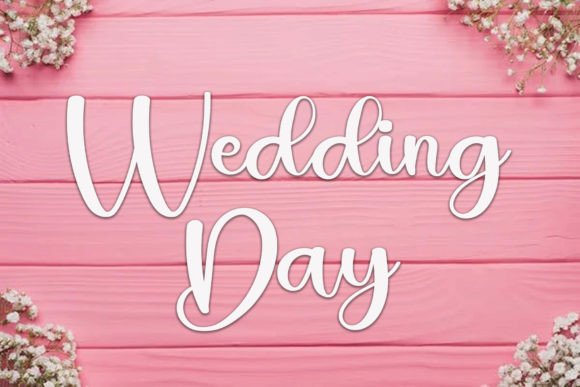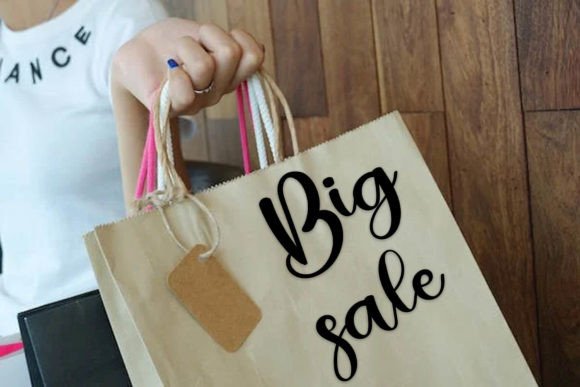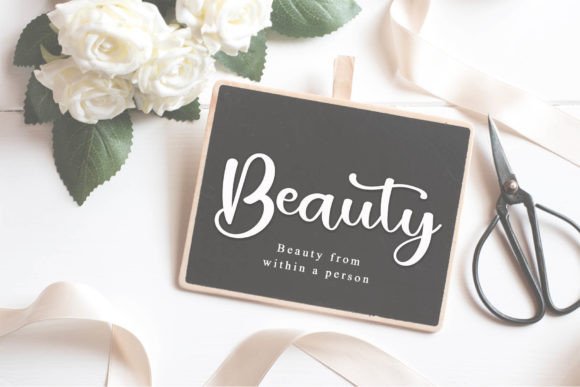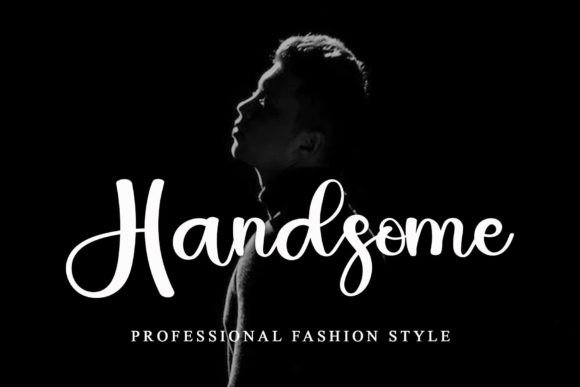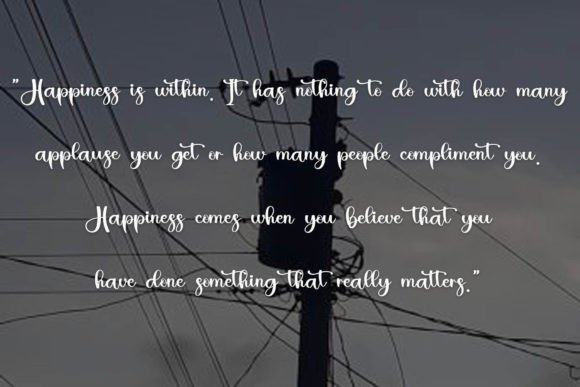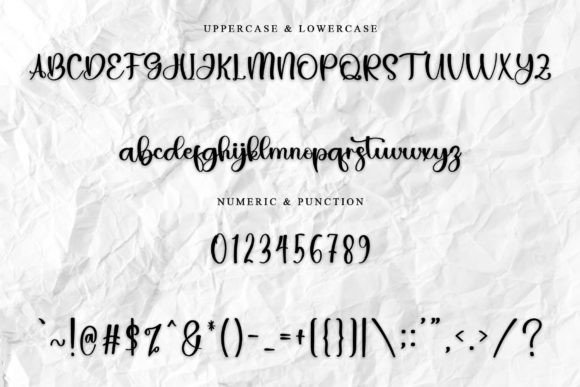
Discover the Elegance of Delight Font: Elevate Your Designs with Timeless Style
In the world of typography, few fonts manage to capture the essence of elegance and sophistication as effectively as the Delight Font. This stunning handwritten font is characterized by its neat, beautiful, and distinctly elegant touch, making it an ideal choice for designers and crafters looking to add a touch of class to their projects. With its incredibly distinct and timeless style, Delight Font is poised to become your new favorite companion in creating spectacular designs that stand out from the crowd.
The Charm of Delight Font
Delight Font is more than just a collection of letters; it’s an expression of artistry and refinement. Its elegant touch is immediately noticeable, offering a sense of sophistication that can elevate any project. Whether you’re working on a branding campaign, crafting a beautiful wedding invitation, or designing a captivating poster, Delight Font brings a level of distinction that’s hard to achieve with more common typefaces.
Key Features of Delight Font
- Neat and Beautiful Handwritten Style: Delight Font boasts a clean and beautiful handwritten appearance that exudes elegance. Its neatness ensures readability, making it suitable for both headings and body text.
- Elegant Touch: The font’s elegant nature makes it perfect for projects that demand a high level of sophistication. It’s an excellent choice for luxury brands, high-end events, and premium products.
- Incredibly Distinct and Timeless Style: What sets Delight Font apart is its unique and timeless style. It doesn’t follow fleeting design trends; instead, it offers a classic appeal that will keep your designs looking relevant for years to come.
The versatility of Delight Font is one of its most appealing qualities. It’s suitable for a wide range of projects, including:
- Branding and Logotypes: Use Delight Font to create a memorable brand identity that communicates elegance and sophistication.
- Wedding and Event Invitations: Add a touch of class to your wedding invitations, save-the-date cards, and other event materials.
- Posters and Flyers: Stand out with eye-catching posters and flyers that utilize the distinctive style of Delight Font.
- Packaging and Product Design: Elevate your product design with elegant typography that captures the essence of your brand.
Why Choose Delight Font?
With so many fonts available, why choose Delight Font for your projects? The answer lies in its unique blend of elegance, readability, and timelessness. Here are a few compelling reasons:
- Enhances Brand Perception: By using a sophisticated font like Delight, you can significantly enhance how your brand is perceived by your audience.
- Versatile and Adaptable: Delight Font can be used across various mediums, from digital platforms to print materials, without losing its charm.
- Easy to Read and Understand: Despite its elegant and handwritten nature, Delight Font maintains a high level of readability, ensuring your message is communicated effectively.
Delight Font is a beautiful addition to the world of typography, offering designers and crafters a tool to create truly spectacular designs. Its neat and elegant handwritten style, combined with its timeless appeal, makes it an excellent choice for a wide range of projects. Whether you’re aiming to create a stunning brand identity, craft beautiful invitations, or design captivating marketing materials, Delight Font is sure to exceed your expectations. Embrace the elegance of Delight Font and discover a new way to bring sophistication and style to your designs.
So, fall in love with the distinct and timeless style of Delight Font, and let it guide you in creating designs that leave a lasting impression on your audience.